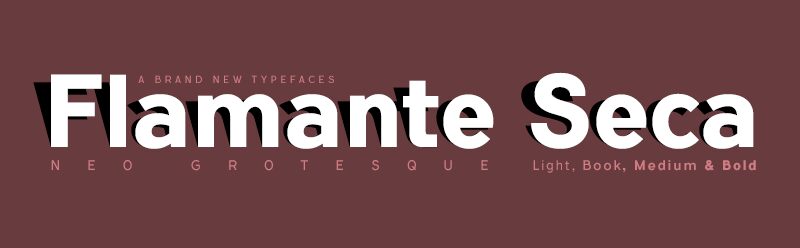
Neo-grotesque style fonts built on a 4 6 building grid formed with 144 x 119 units (Regular version), two digits taken from the fibonacci and Perrin sequences, these measures define the width and height of the vertical and horizontal antlers and the overall proportion of the font.
The metrics and kerning have been carefully set up for fluent reading in paragraph texts.
Flamante Seca Book
Fernando Haro
Flamanteca Seca is a new family of Sans Serif fonts with four weights: Light, Book, Medium and Bold and their corresponding italic versions.
Swiss-style fonts built on a 4 × 6 building grid formed with 144 x 119 units, two digits taken from the fibonacci and Perrin sequences, these measures define the width and height of the vertical and horizontal antlers and the overall proportion of the font. The metrics and kerning have been carefully set up for fluent reading in paragraph texts.